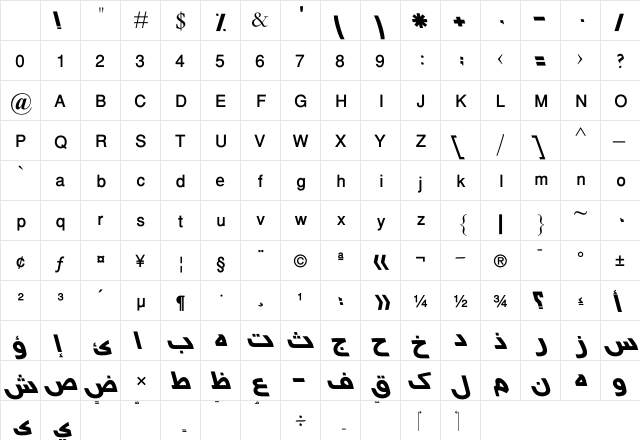
Complete AGT Abdul Ahad Mohmand Bold glyph index. Displaying only characters natively supported by AGT Abdul Ahad Mohmand Bold font.
AGT Abdul Ahad Mohmand is a composed and adaptable typeface that performs quietly and consistently across a wide range of design contexts. Its bold stroke weight gives it real presence on the page.